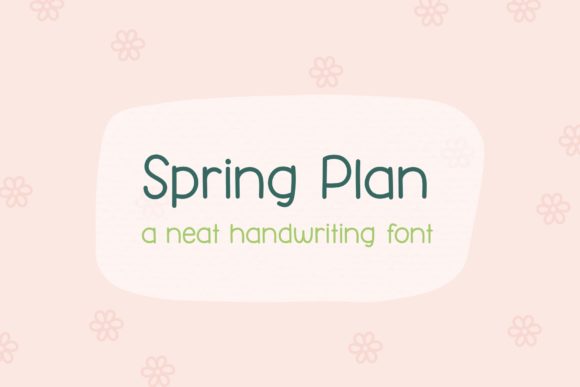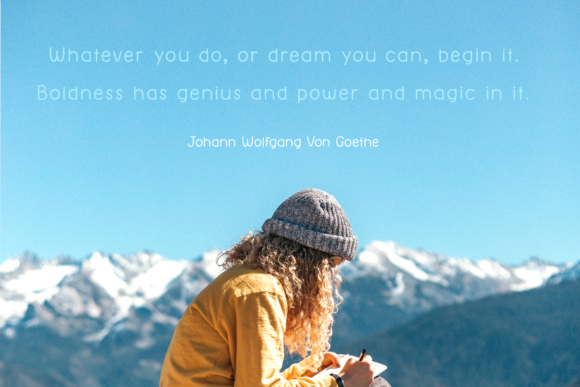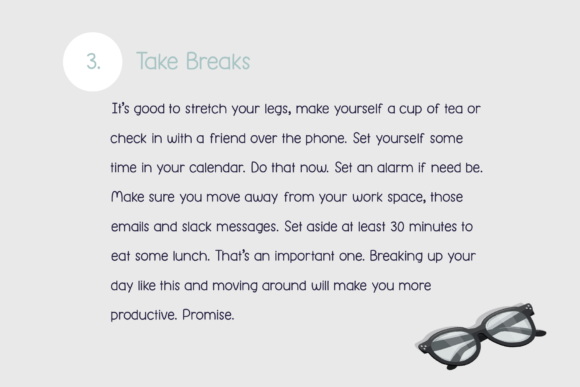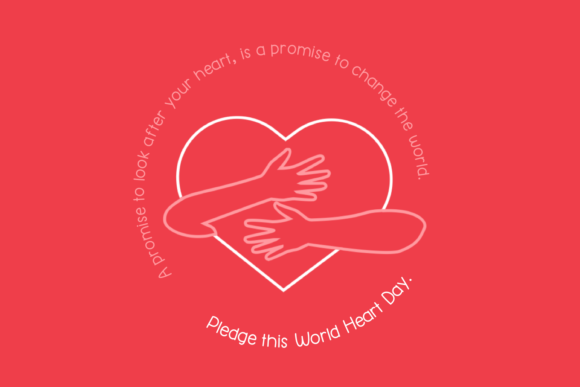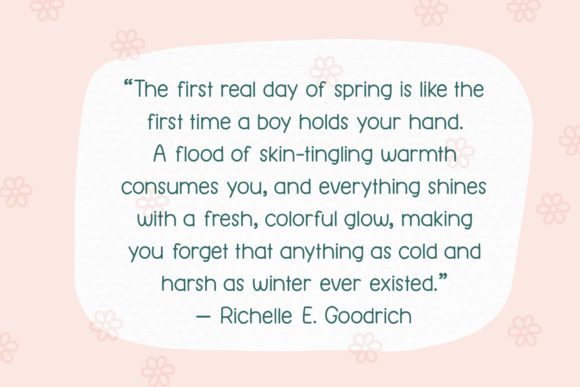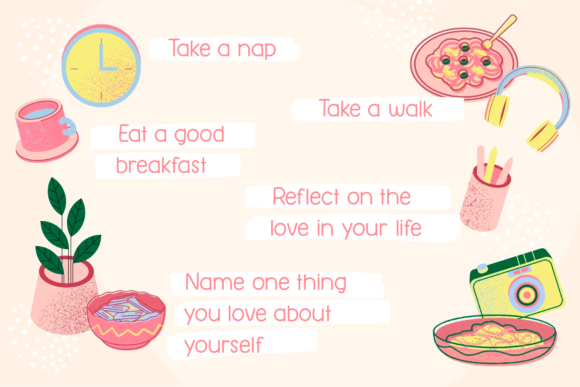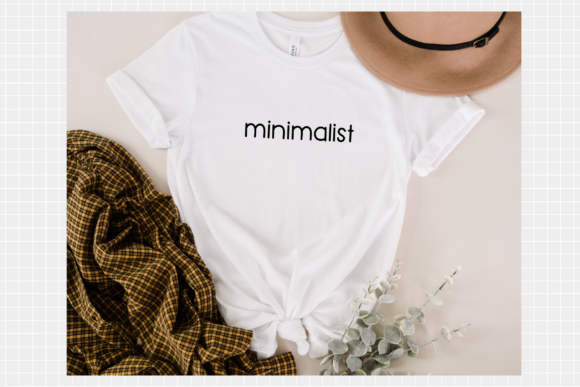
About Spring Plan Font
Spring Plan is a neat, simple handwritten font. You can use this font in various projects – blog posts, logos, branding, digital planner, digital bullet journal, invitations, greeting cards, decorations and much more.
The font includes uppercase, lowercase, numbers, punctuation.